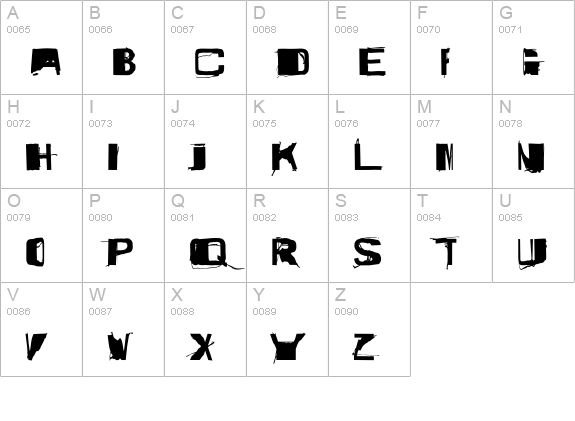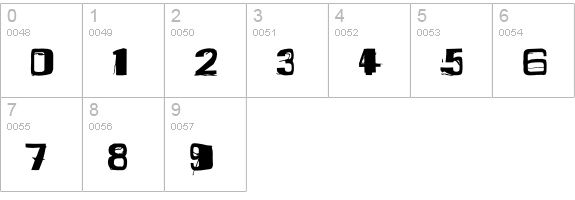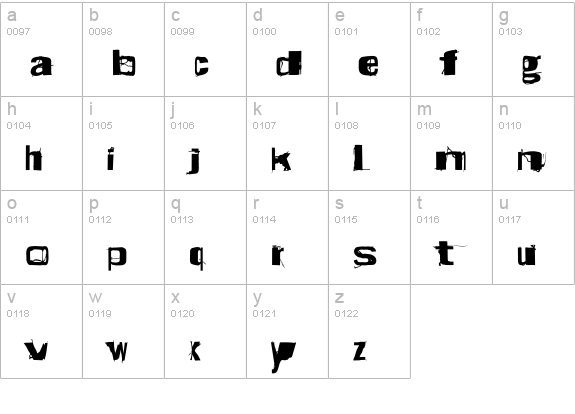
Angst-Heavy Font Details
Angst-Heavy is a heavy, high-impact variant in the Angst typeface family \xE2\x80\x94 well suited to high-impact headlines, posters, and display advertising.
Angst-Heavy font is a bold and intense typeface designed to convey strong emotions and deep feelings through its distinctive letterforms. This font exudes a sense of unease and tension, making it perfect for projects that require a touch of drama and intensity. The sharp angles and heavy strokes of Angst-Heavy font give it a powerful presence on the page, demanding attention and conveying a sense of urgency. Whether you're looking to add a touch of edginess to a poster, flyer, or branding project, this font is sure to make a statement. Best of all, Angst-Heavy font is available for free download at FontsMarket.com. So go ahead and add this striking typeface to your design arsenal today and let its bold personality elevate your creative projects to new heights.